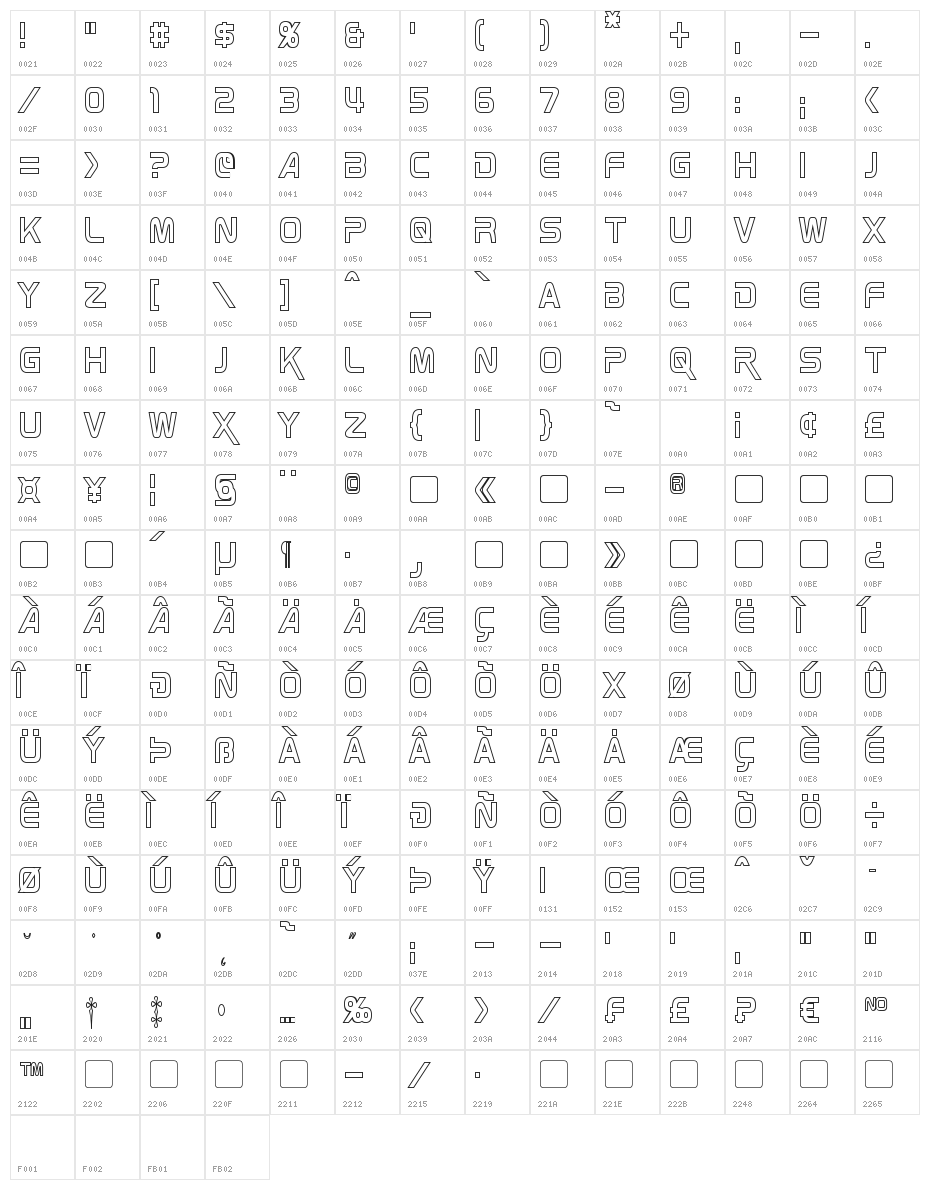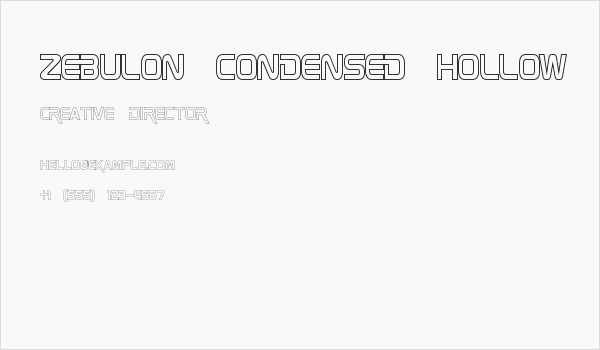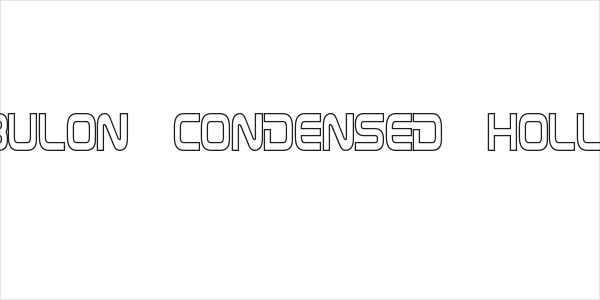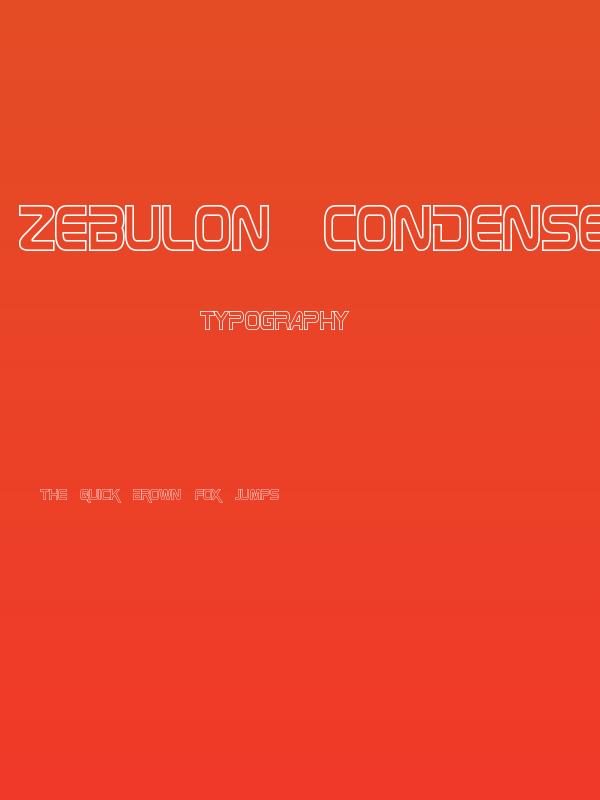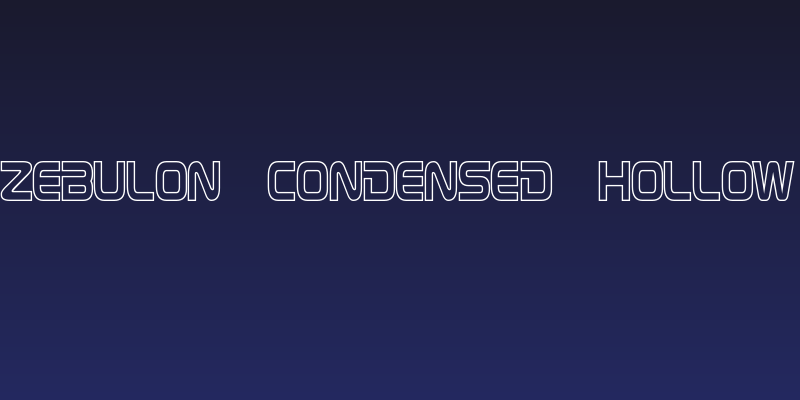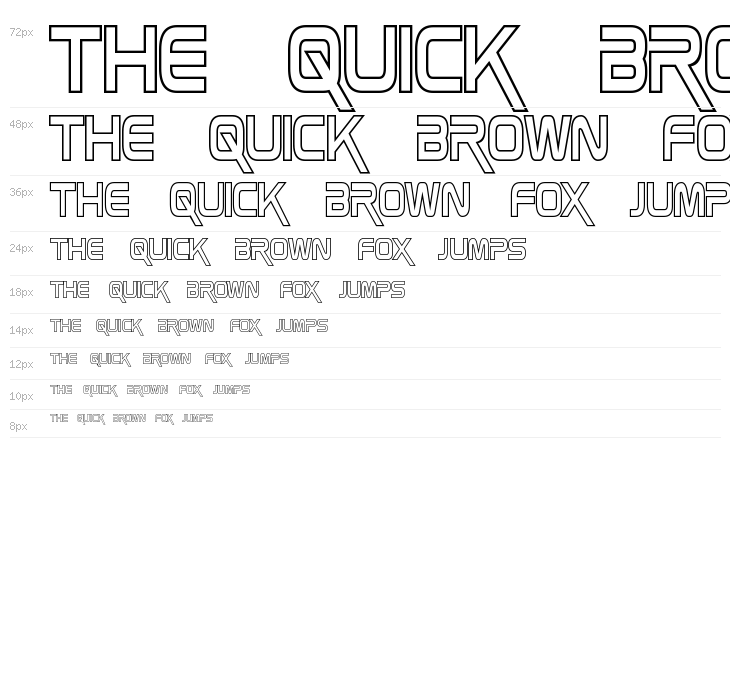
Zebulon Condensed Hollow Font
Zebulon Condensed Hollow Description
This font features a bold, geometric design with hollow interiors, giving it a futuristic and modern appearance. The characters are uniformly condensed, creating a compact and efficient look. The outlines are clean and precise, emphasizing the structural form of each letter and number. This style is particularly striking in uppercase, where the angular lines and sharp corners are most pronounced. The font maintains a consistent line weight throughout, contributing to its cohesive and balanced aesthetic. The hollow nature of the characters adds a unique dimension, making it stand out in various design contexts.
| Proposed Projects | Ideal for futuristic branding, tech-related projects, sci-fi themed designs, and modern posters. |